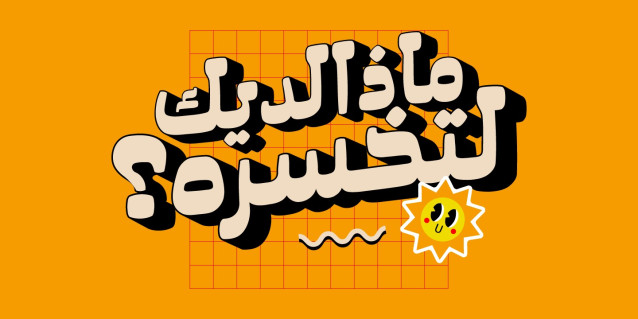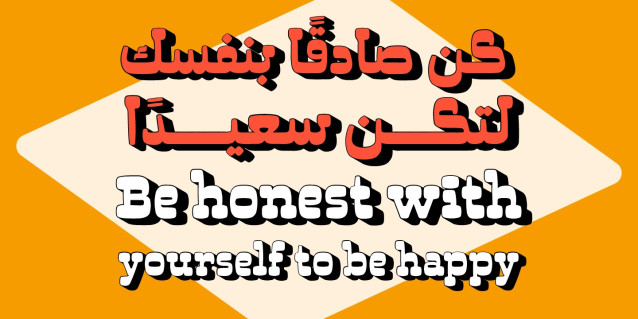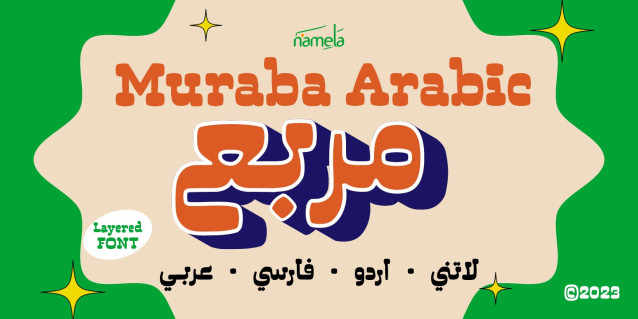
Muraba Font
Muraba Font a bold, modern style with vintage charm to create an elegant, ageless look. Thick, squared-off serifs on each character are painstakingly created, drawing the eye and lending a touch of sophisticated decoration. Thoughtfully enhanced with additional Arabic glyphs to facilitate international versatility and creativity. It expands its reach to cater to a broader audience, encompassing Arabic, Urdu, Kurdish, Farsi, and Jawi scripts. Whether applied to display text, headers, or logos, this typeface is distinctive and makes a statement in any artistic project.
This adaptable gem’s remarkable design and distinctive look make it suitable for a wide range of uses. Its infinite adaptability makes it appropriate for a variety of tasks. Muraba Font is the ideal option when creating eye-catching headers that entice the viewer or creating distinctive logos that make an impression.
Its unique style stands out from the competition and attracts attention with ease. Creativity has no boundaries when using Muraba Font because it creates a plethora of design options. This typeface takes every project to new heights by adding a touch of classic charm, whether it is utilized in print or digital media.
Accept the Muraba Latin & Arabic Font and let your imagination go wild. Take inspiration from its striking design and unique personality to produce eye-catching graphics that enthrall and involve viewers. The options are unlimited when using Muraba Font, and the outcomes will undoubtedly make an impact.